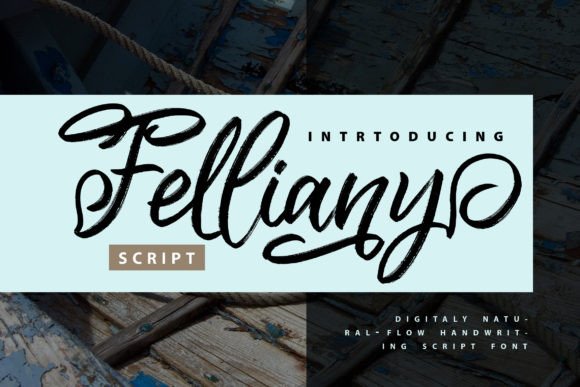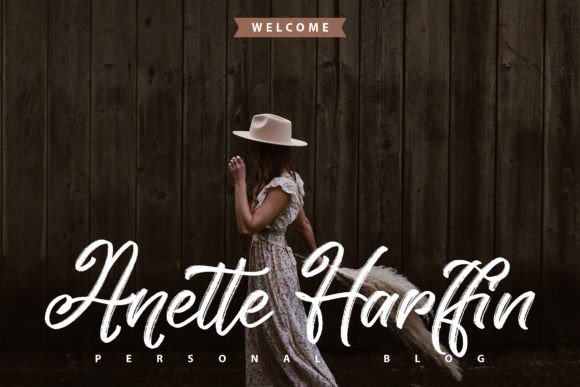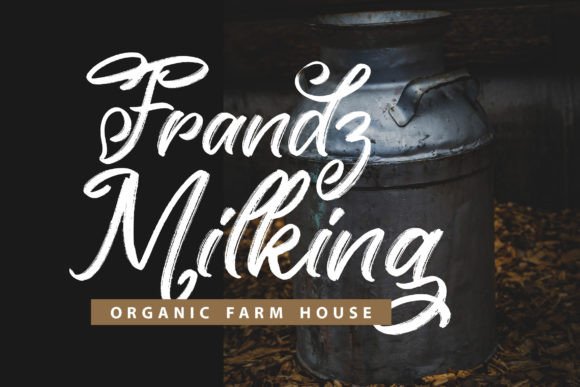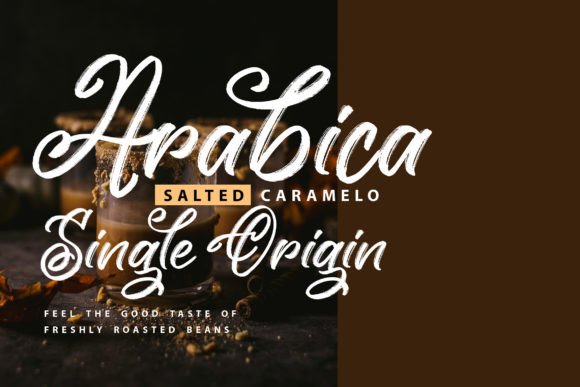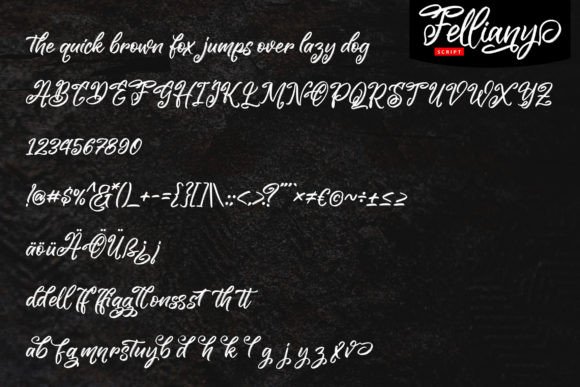
Felliany Font
The Felliany Font Download is a modern and trendy brush script typeface that brings stylish energy to your creative projects. With its bold strokes and natural flow, this handwritten font is perfect for both personal and professional use. Whether you’re designing posters, branding, or digital graphics, Felliany delivers a strong and expressive look.
A Modern and Trendy Brush Script
The Felliany script font features bold brush strokes combined with smooth curves that give it a fashionable edge. As a result, it looks confident and artistic. Furthermore, its design ensures that it maintains readability across different applications, from small prints to large-scale displays.
Handwritten brush fonts always bring personality and charm to stationery. The Felliany Font is ideal for wedding invitations, thank you cards, seasonal greetings, and event announcements. Because of its trendy brush style, every piece of stationery feels creative and unique. In addition, it makes your invitations memorable and visually striking.
Branding and Logo Design with Felliany Font
Typography communicates brand identity. The Felliany handwritten font is an excellent choice for logos, product packaging, and boutique branding. Its modern brush script creates a stylish yet approachable image. Therefore, it works especially well for fashion, beauty, and creative lifestyle brands.
Posters, Quotes, and Editorial Work
The Felliany Font Download also shines in posters, book covers, magazines, and motivational quotes. Its bold strokes ensure high impact while maintaining elegance. Consequently, it is a dependable font for designers seeking a modern, artistic touch in their editorial layouts.
In today’s fast-paced digital space, fonts must adapt seamlessly to online use. The Felliany typeface integrates smoothly into Instagram graphics, YouTube thumbnails, Pinterest pins, and blogs. Because of its stylish brush charm, it makes digital projects visually appealing and trendy.
Why Designers Choose Felliany Typeface
Designers appreciate fonts that offer creativity and usability. The Felliany handwritten script provides bold character while staying legible. Moreover, its trendy brush strokes ensure timeless appeal for future projects. This makes it a go-to choice for professionals and hobbyists alike.